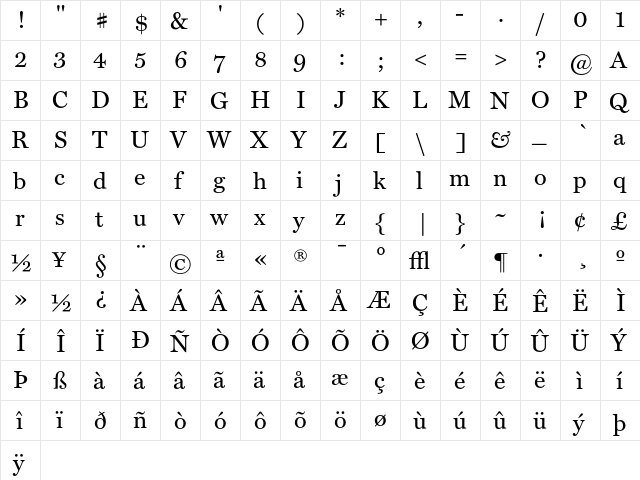
Miller Regular
Design Context for Miller Typeface
Miller is a composed and adaptable typeface that performs quietly and consistently across a wide range of design contexts.